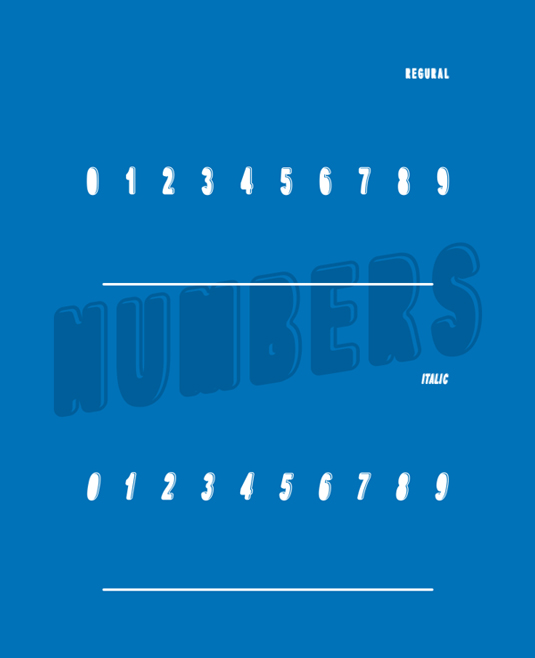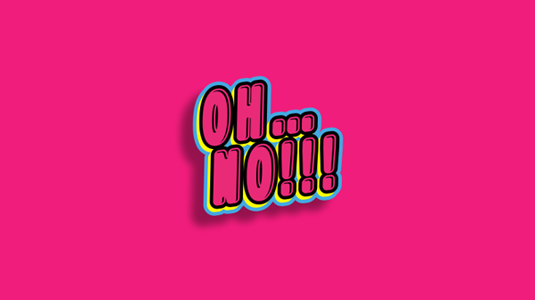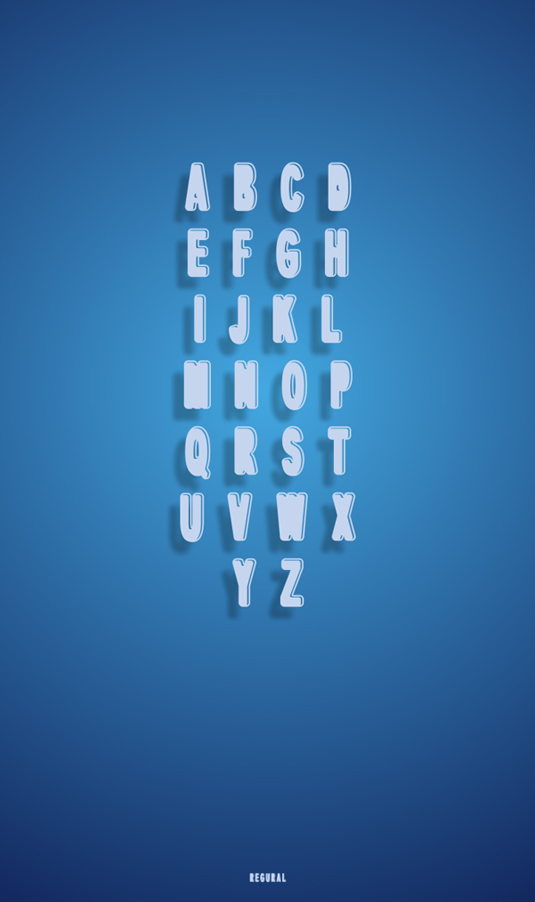
Font of the day: Dpopper
Dpopper by Iordanis Passas
Today's font of choice is this eye-catching slab design Dpopper by graphic designer Iordanis Passas. One of many free designs created by Passas, this latest offering was released this week.